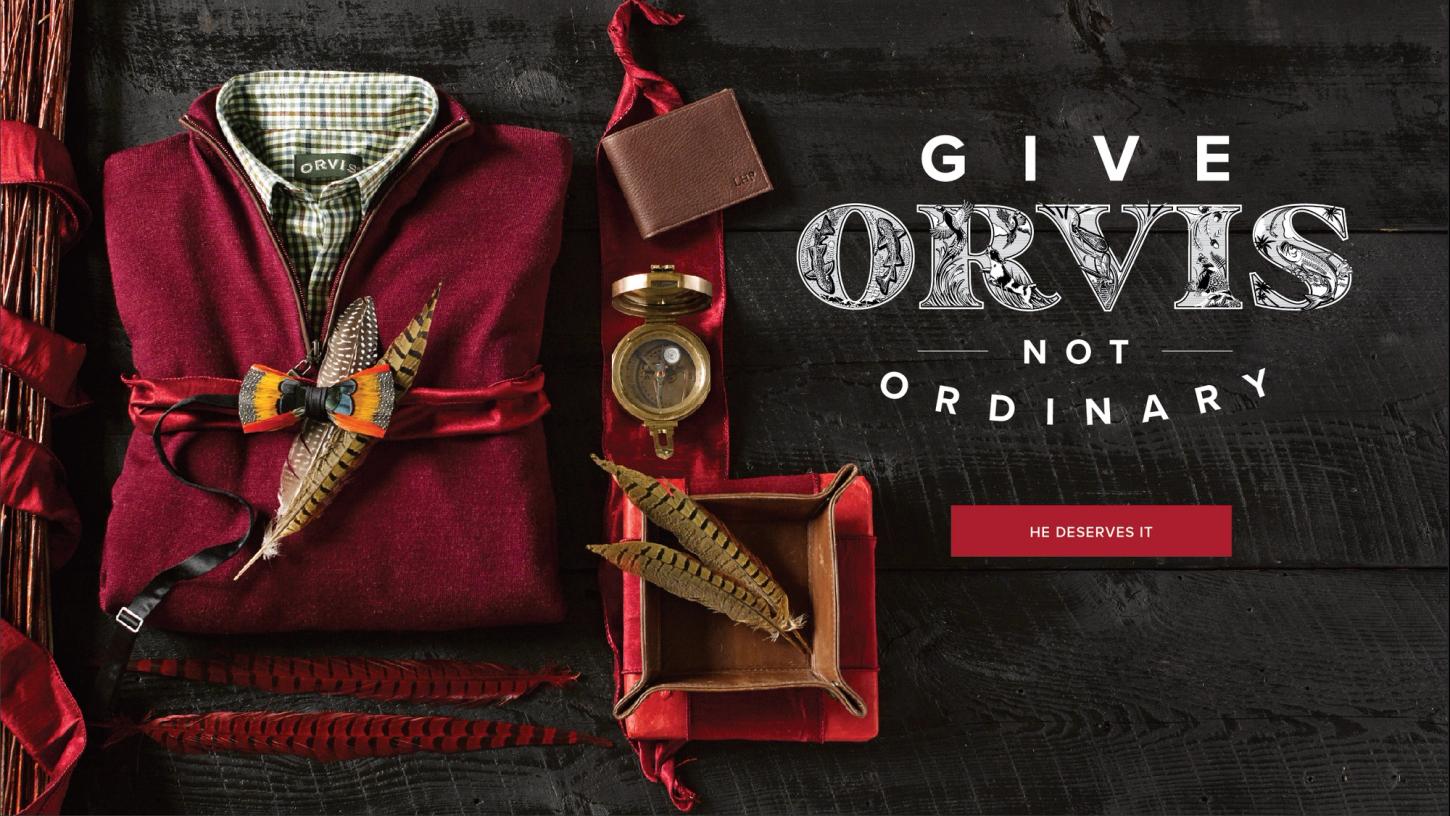
Orvis Brand Illustrations
Typography meets nature – illustrated letters inspired by nature for Orvis.
Overview
Orvis commissioned me to create a set of illustrated letters for their brand, each depicting flora and fauna from distinct natural habitats. The design reflects Orvis’s passion for adventure and the outdoors.
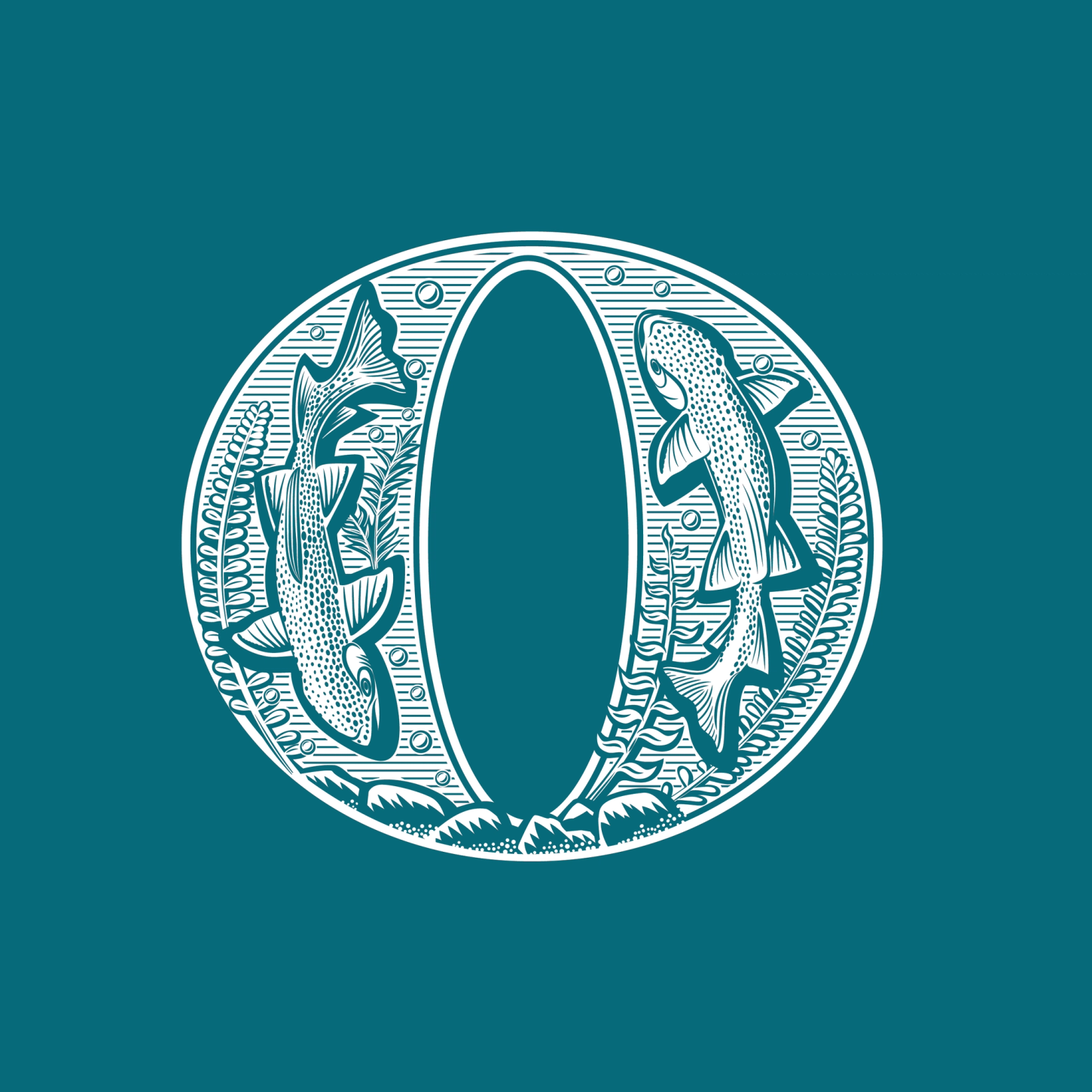
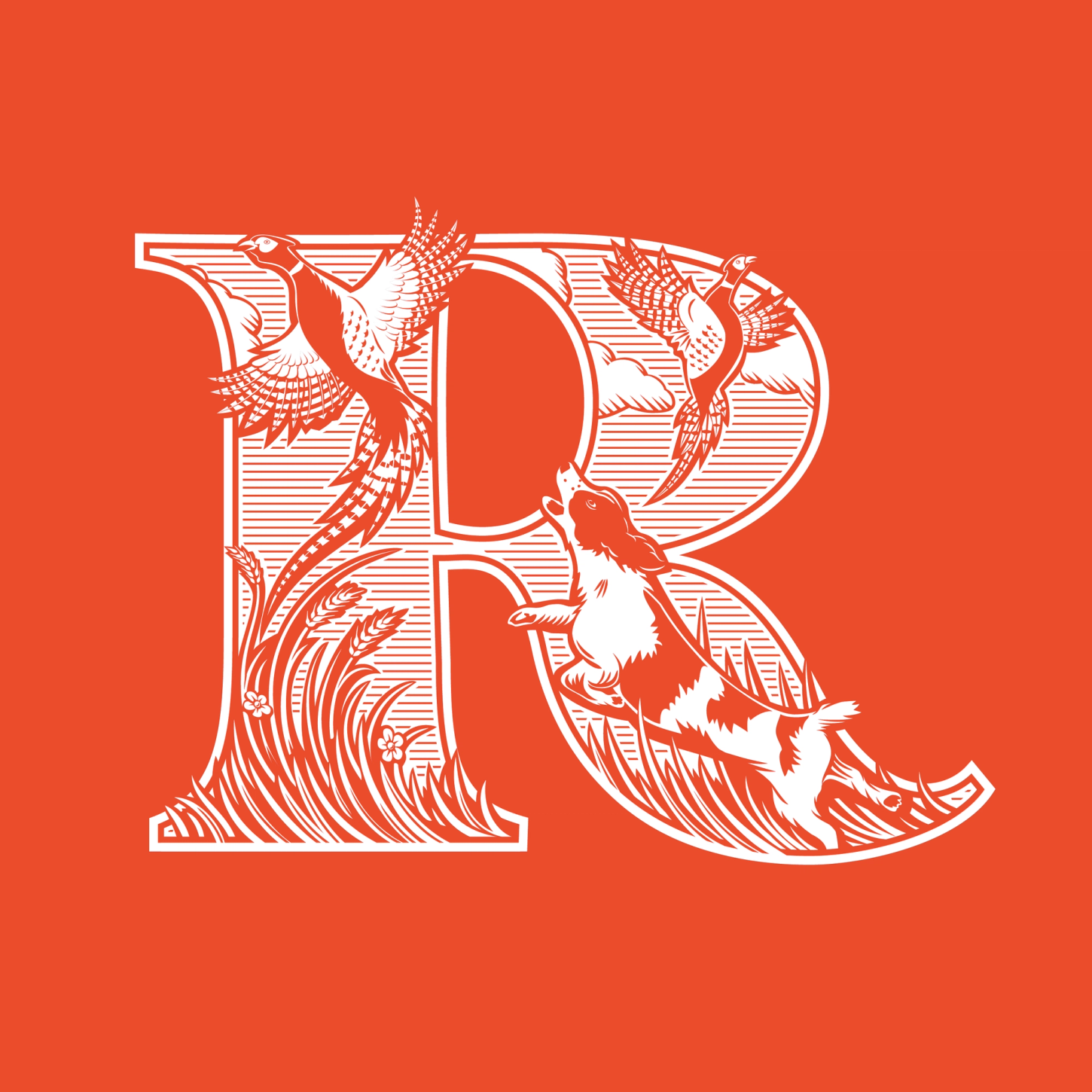
Method
Each letter was intricately drawn in a woodblock-inspired style, capturing the essence of environments such as rivers, uplands, riverbanks, forest floors, and saltwater regions. The artwork balances vintage craftsmanship with a fresh, contemporary appeal.
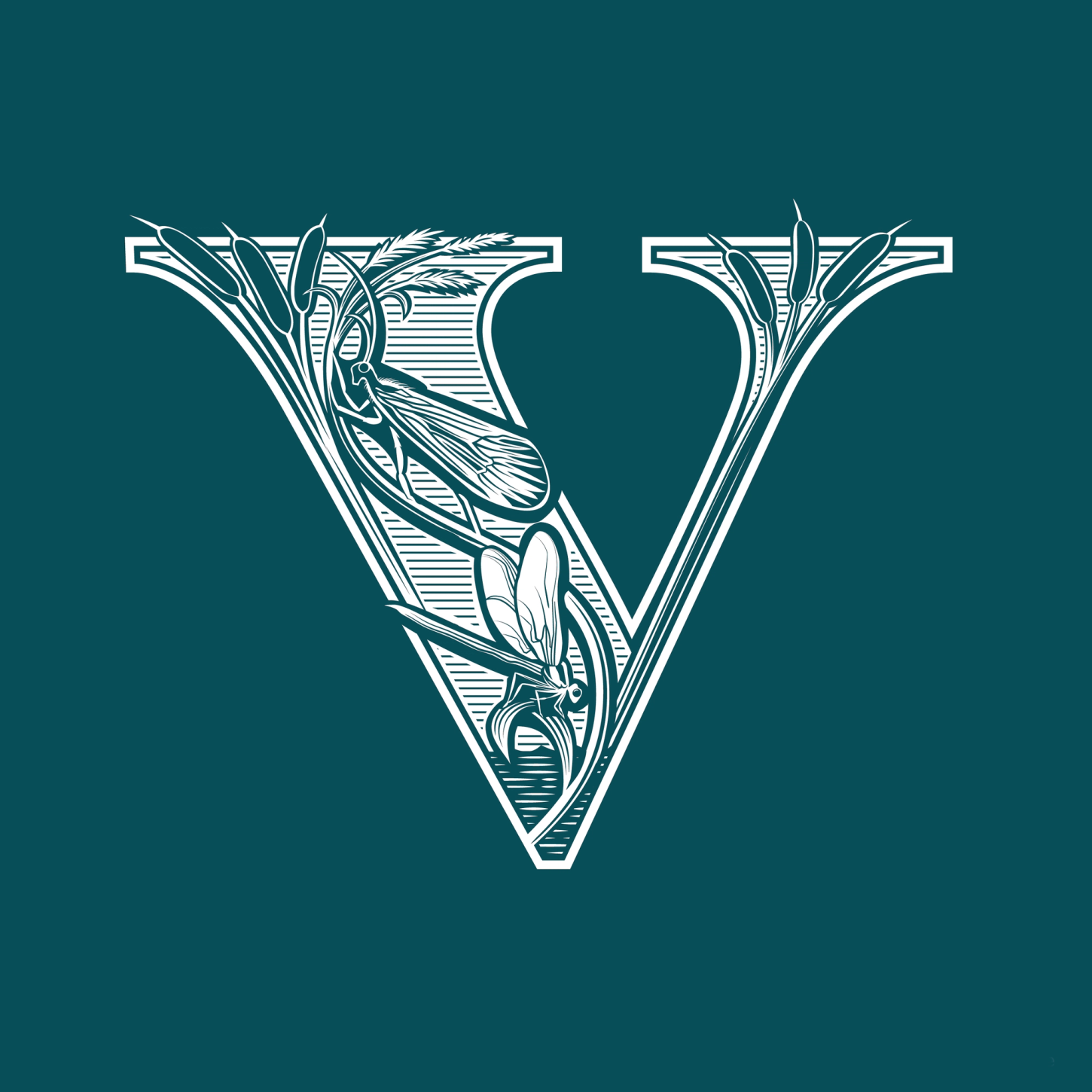
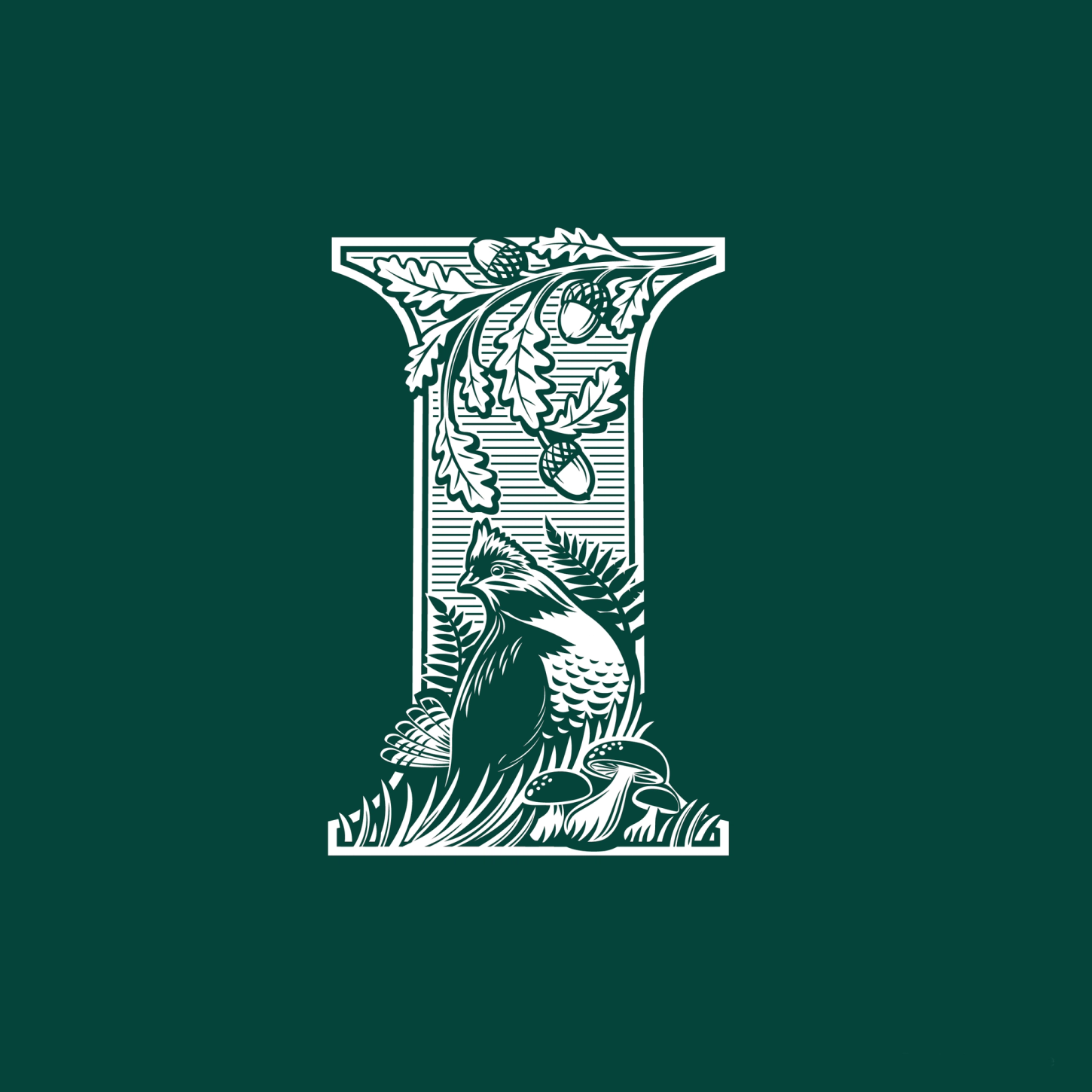
Outcomes
The final illustrations bring Orvis’s identity to life, creating a timeless connection between the brand and the natural world.